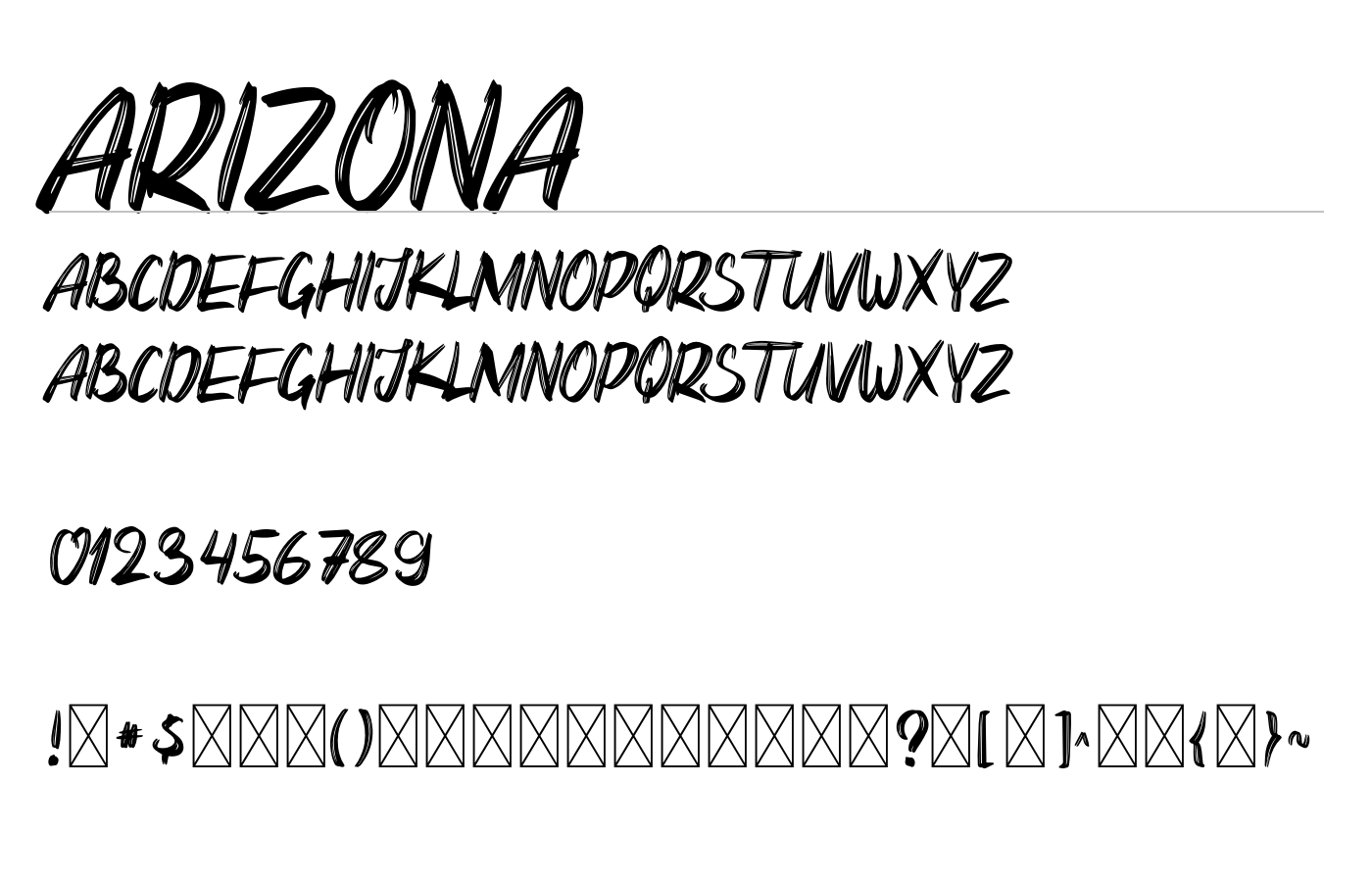
Arizona is an energetic and bold handwritten script font that captures a casual, artistic feel with its textured, brush-like strokes. It works well for creative projects, branding, and headlines that need a dynamic, informal touch, making it perfect for lifestyle, fashion, and youth-oriented designs seeking a personal, expressive vibe.
Arizona Font
About Arizona Font
| Font family | Arizona Font |
| Designer | Doli Harahap |